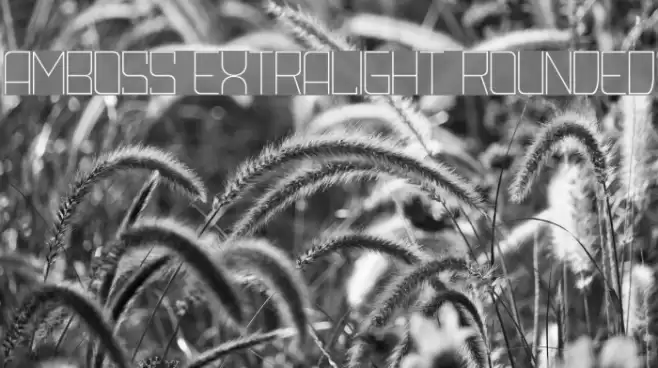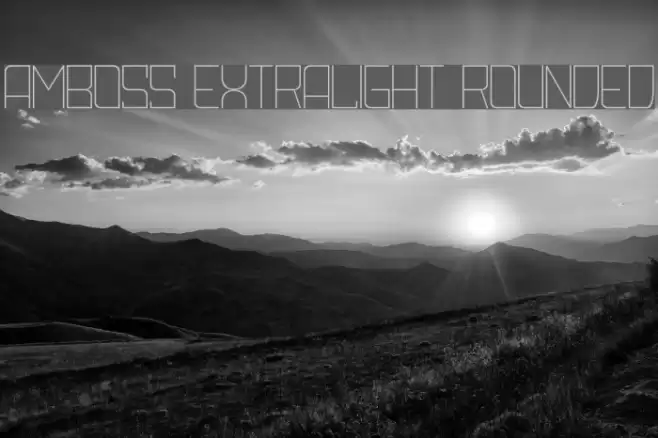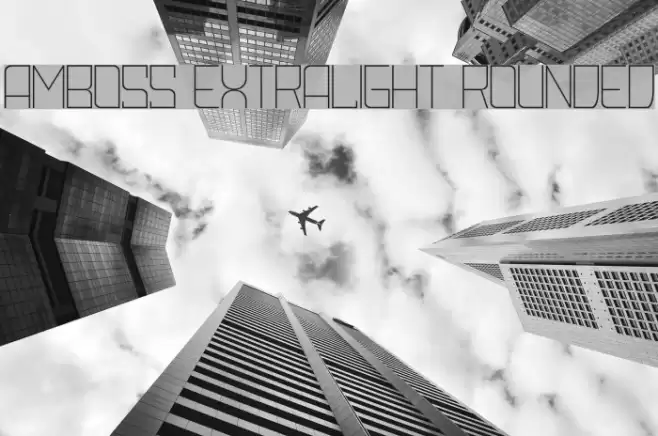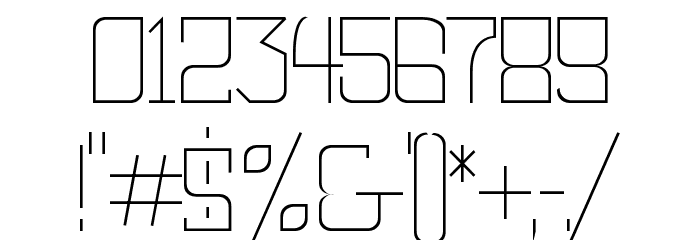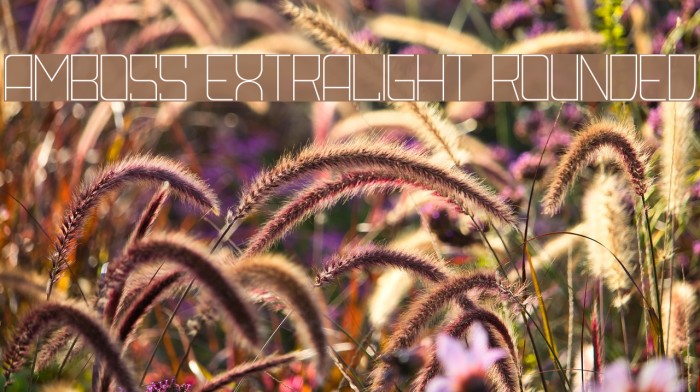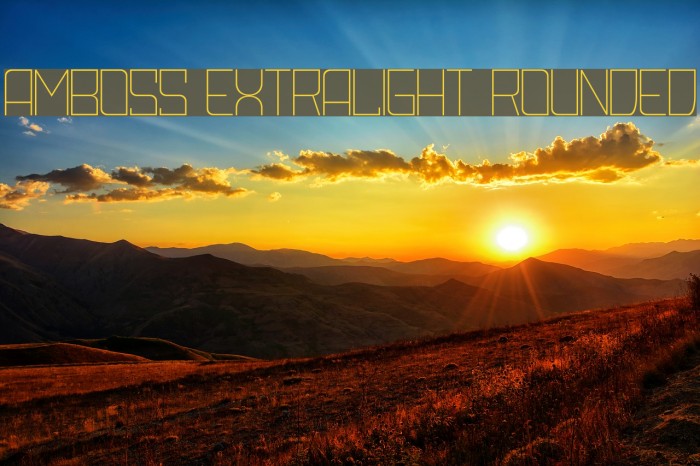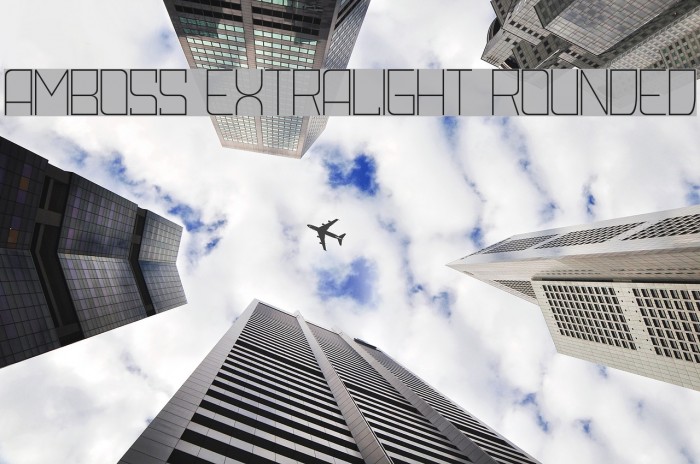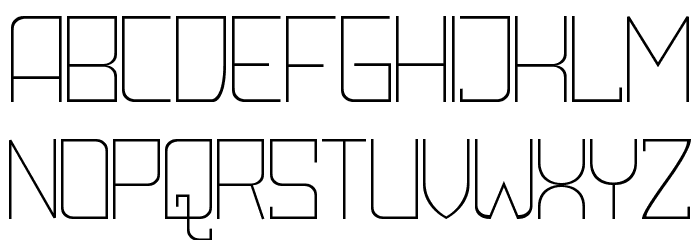
Amboss ExtraLight Rounded Font
Amboss ExtraLight Rounded Description
This font features a modern and minimalist design with a geometric structure. The characters are constructed with thin, consistent lines that form a rounded, box-like shape. The uppercase and lowercase letters maintain a uniform height, contributing to a clean and streamlined appearance. The numerals and special characters follow the same design principles, ensuring a cohesive look across all glyphs. The overall aesthetic is sleek and contemporary, making it suitable for projects that require a futuristic or tech-inspired feel.
A modern, geometric font with thin, rounded lines and a minimalist style from Uncategorized fonts.
- Proposed Projects: Ideal for tech branding, digital interfaces, modern posters, and futuristic designs.
- Use Case: Headlines, Logos, Digital interfaces